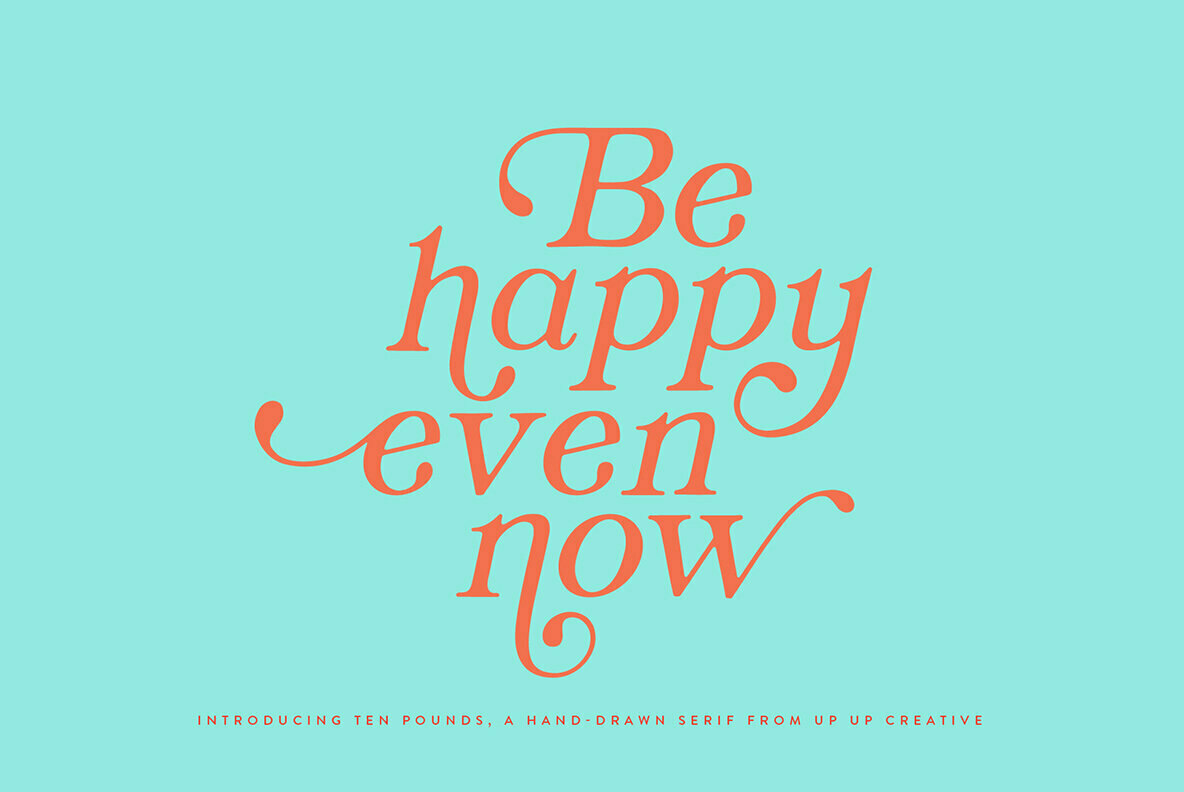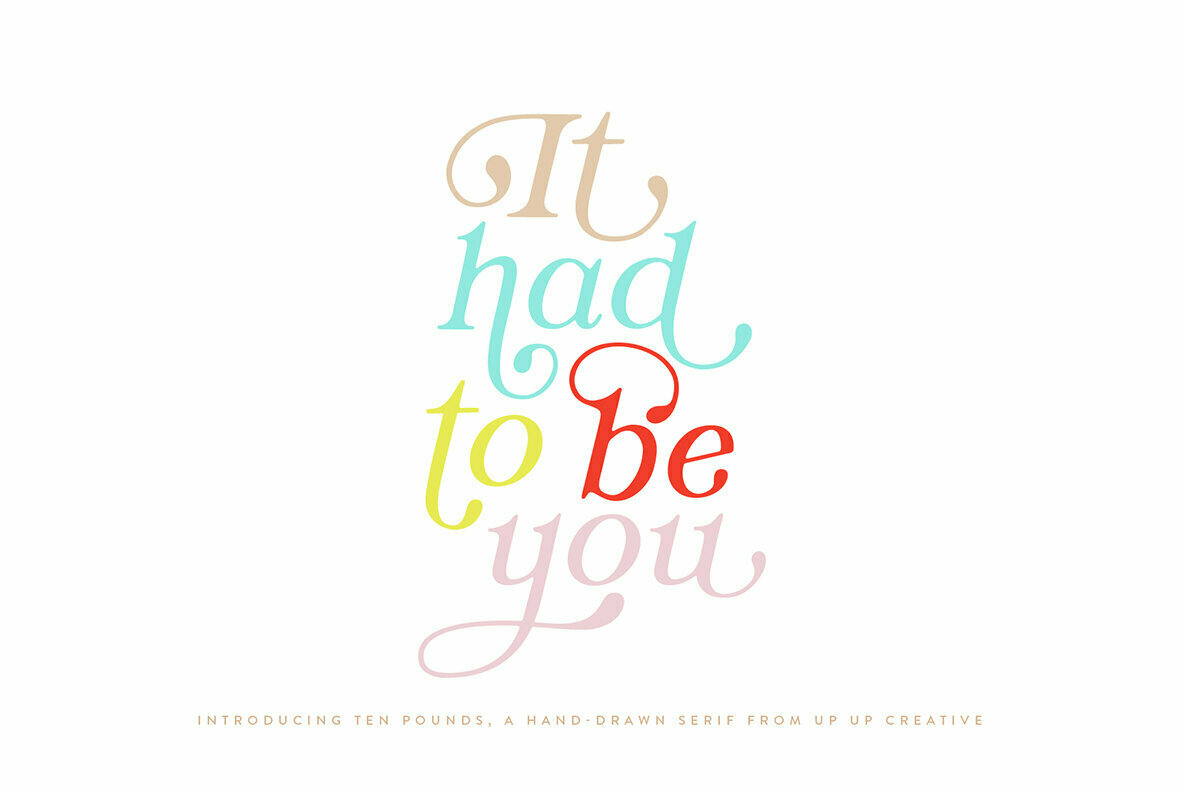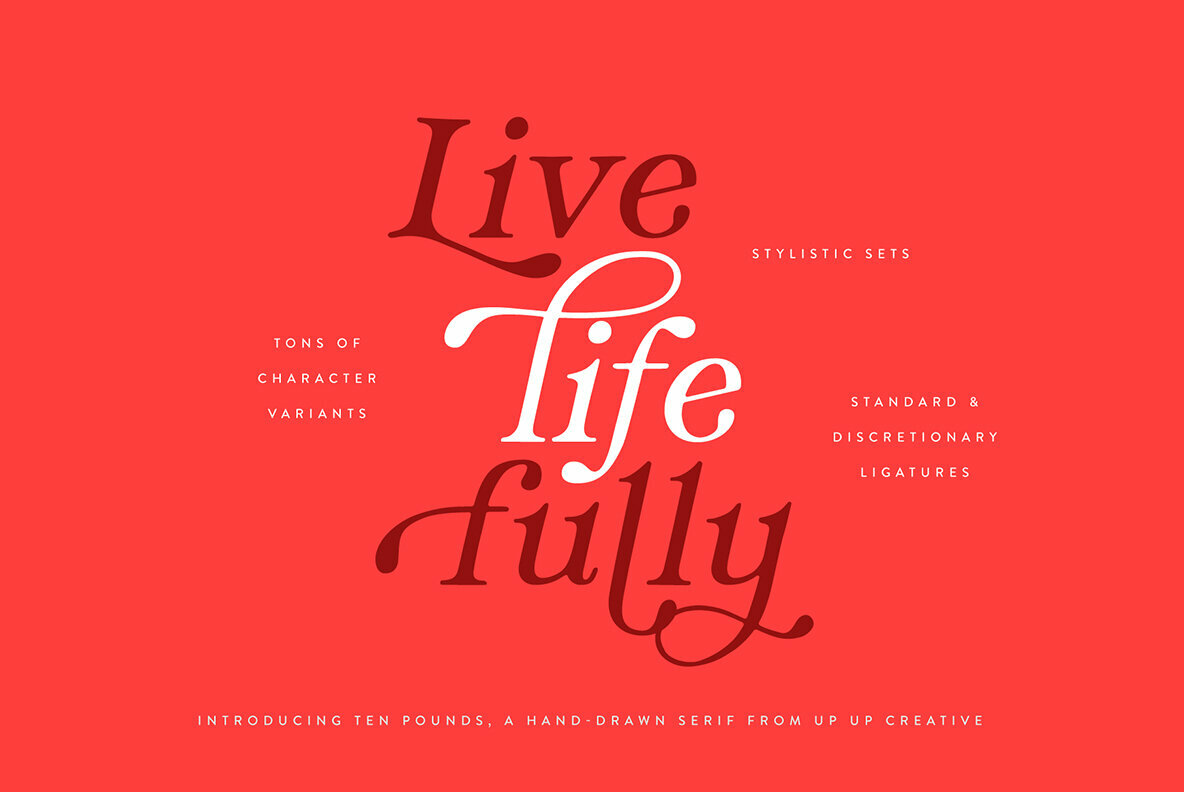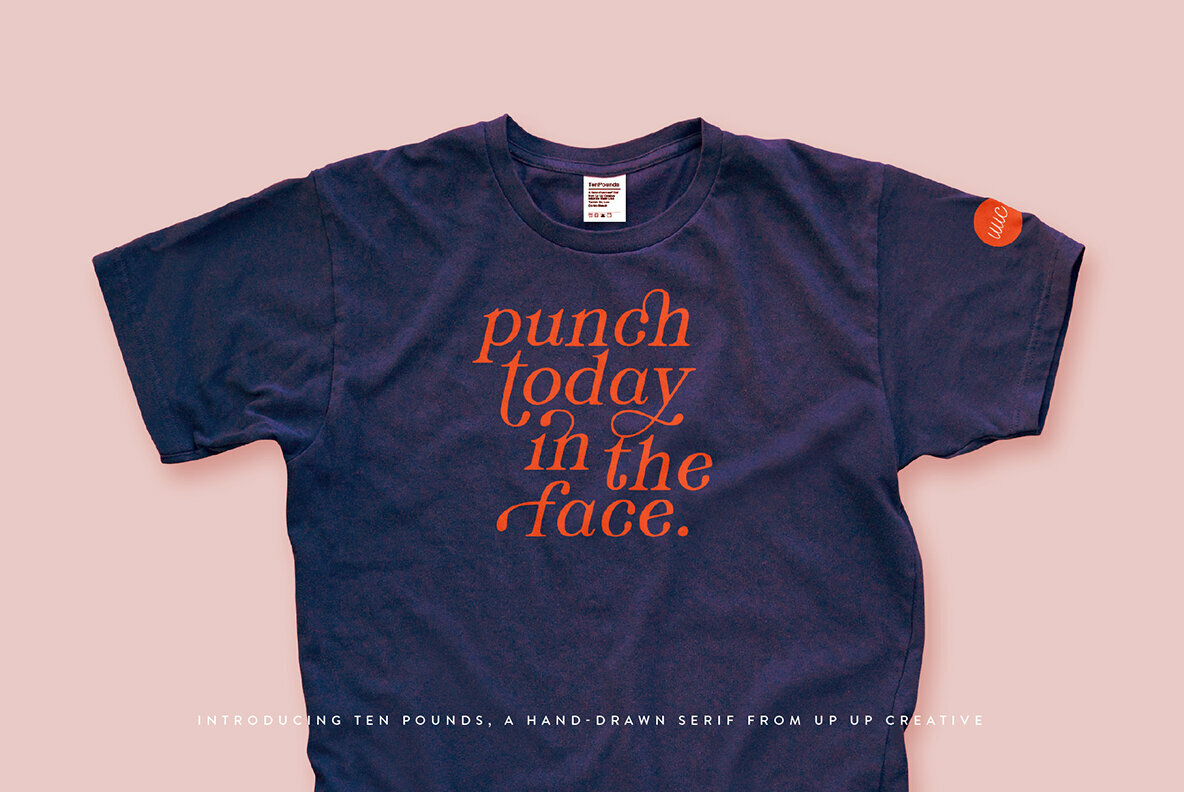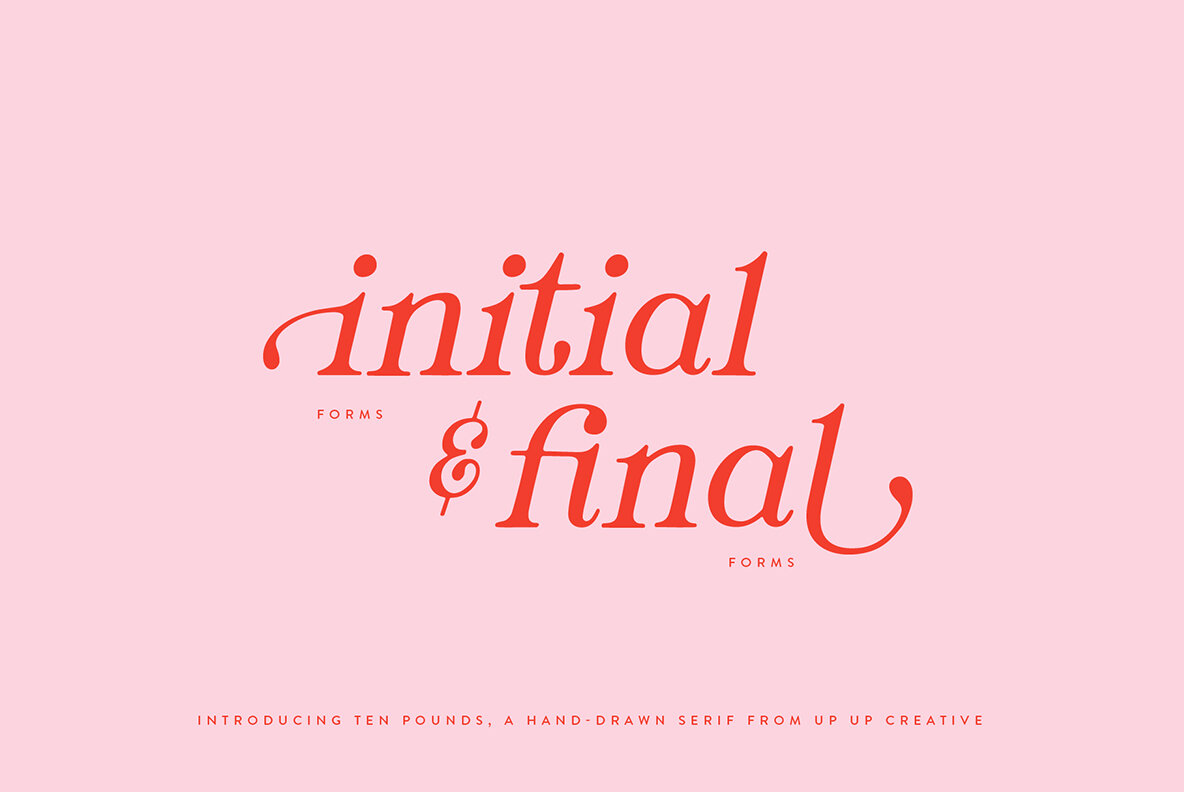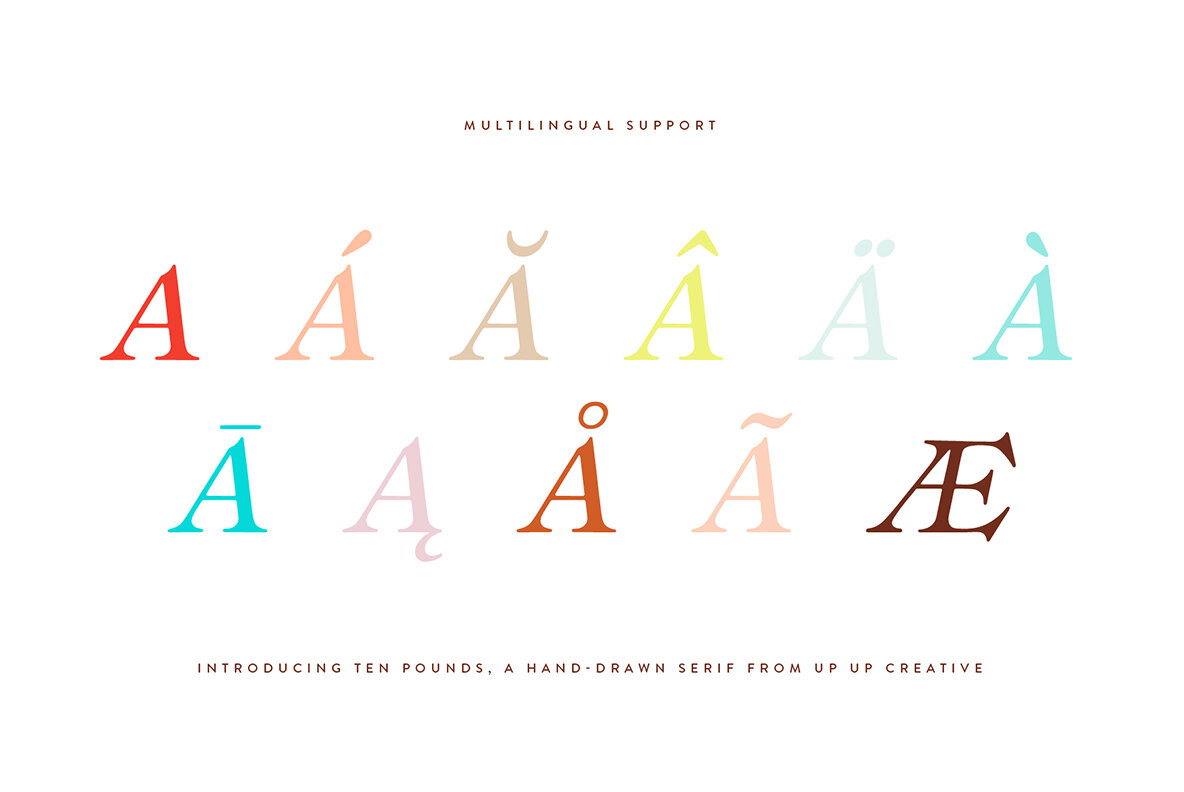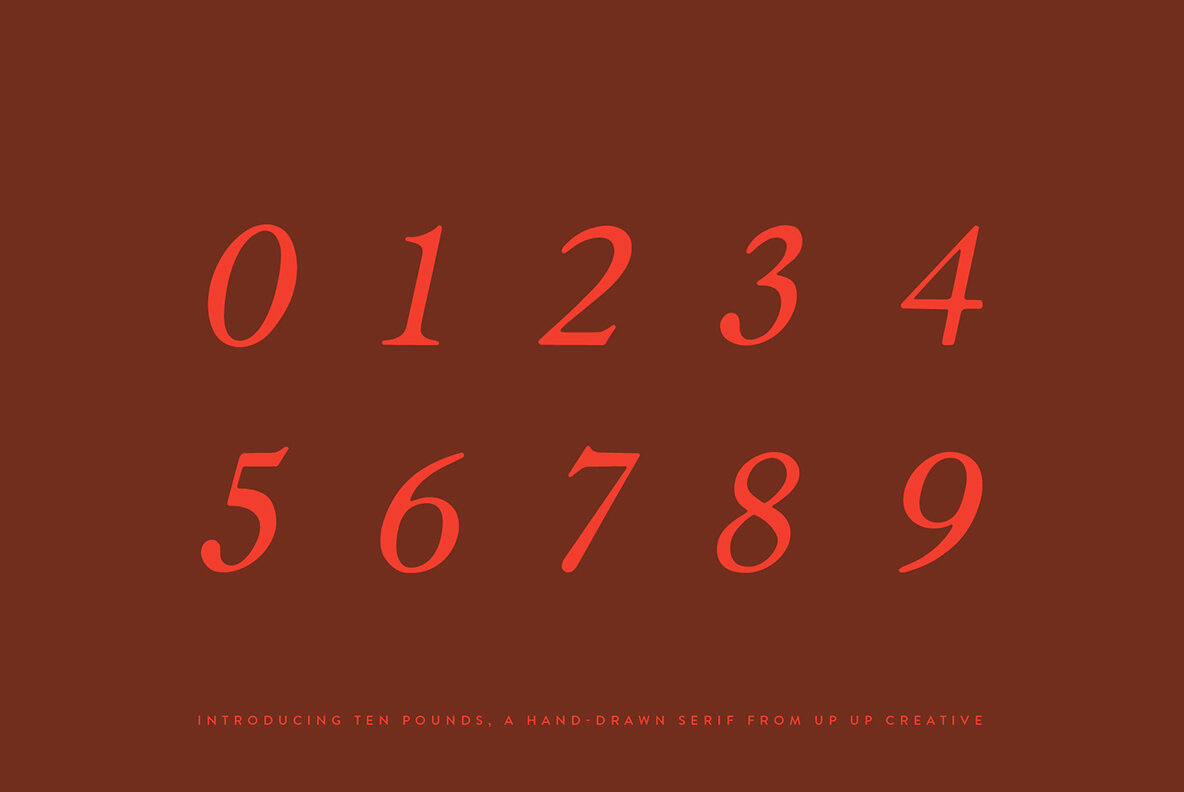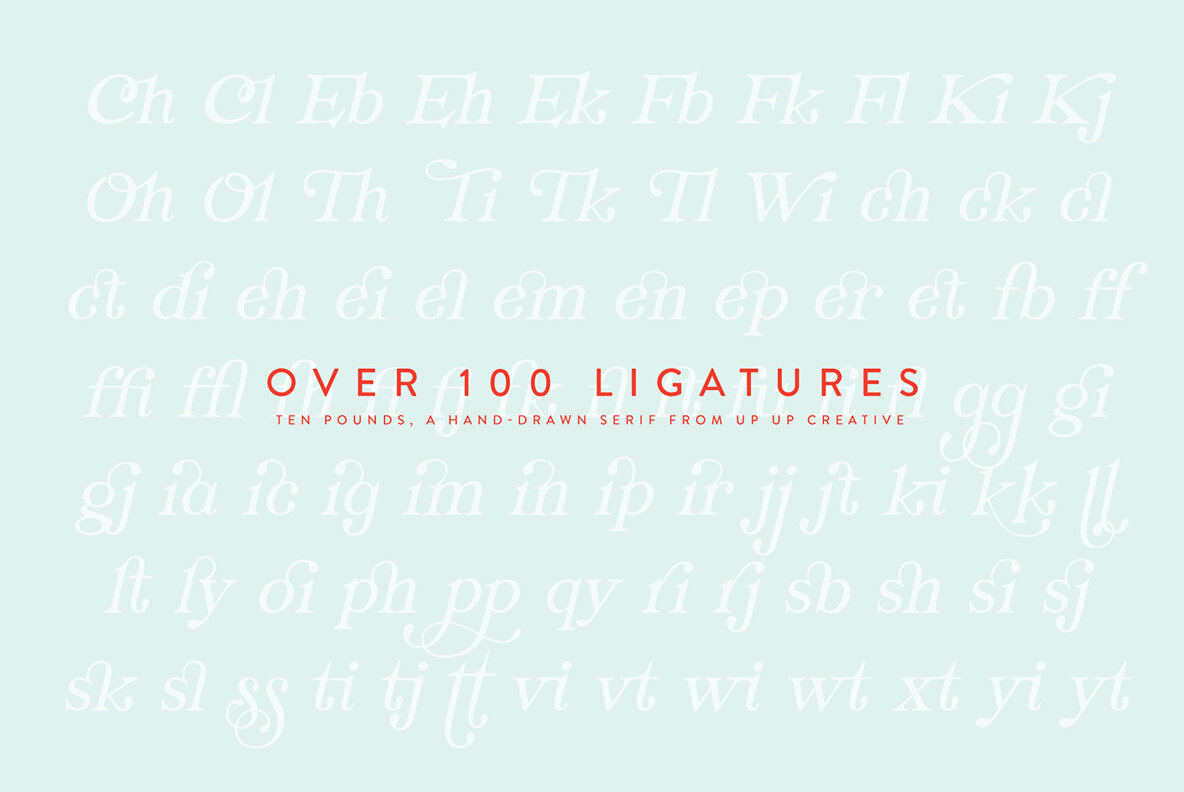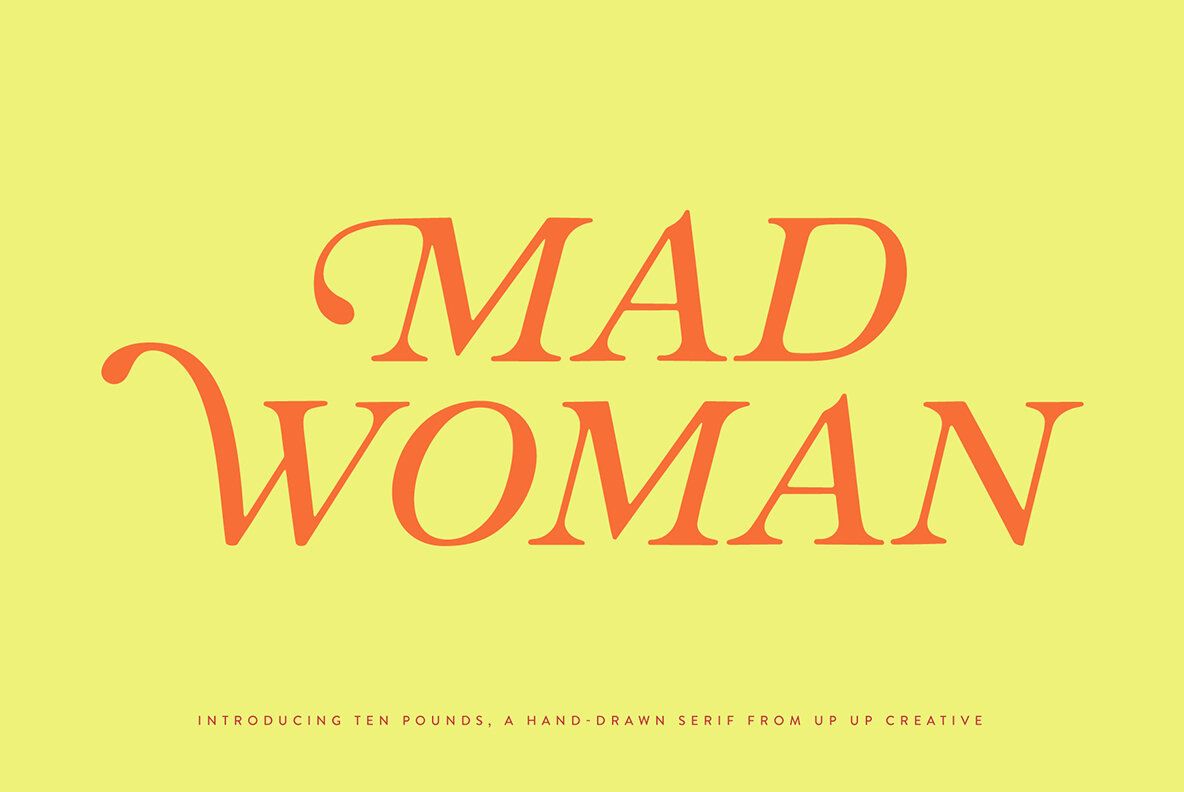
Ten Pounds Font
Ten Pounds Regular
Ten Pounds, a fun, hand-drawn serif font with tons of character (and tons of characters!).
Ten Pounds is perfect for branding, poster design, t-shirts, invitations, design for children, and editorial design. It comes with more than 1300 glyphs, including more than 100 ligatures. OpenType features include stylistic sets, character variants, initial and final forms, and multilingual support (including multiple currency symbols).